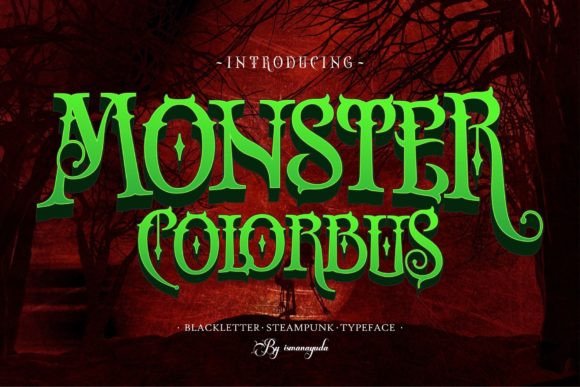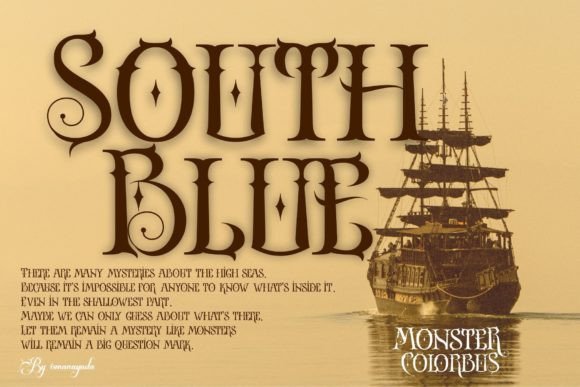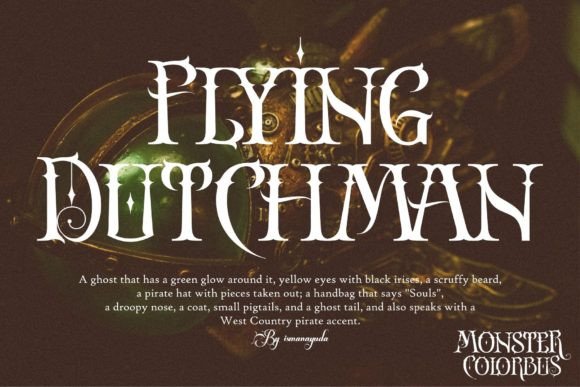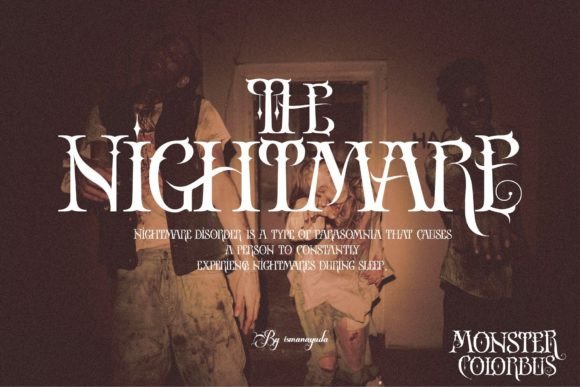
Monster Colorbus Font
About the Monster Colorbus Font
Discover the charm of Monster Colorbus Font. This font is a perfect blend of modern aesthetics and classic appeal. Monster Colorbus is a font that has a blackletter style but is given a steampunk feel so that users can appreciate works of art more through a beautiful writing style.
Its strong, angular forms make Monster Colorbus ideal for headlines, posters, and branding projects requiring a bold, attention-grabbing aesthetic. The steampunk influence lends itself well to vintage-inspired designs or projects with a mechanical or industrial theme. However, its highly decorative nature makes it unsuitable for body text or UI elements where readability is paramount. Avoid using it for long passages of text.
Pairing Monster Colorbus with a clean sans-serif like Open Sans for body copy provides excellent contrast and enhances readability. For a more cohesive vintage feel, consider pairing it with a complementary serif font such as Playfair Display. A geometric sans-serif could also work well, offering a modern counterpoint to the font’s ornate style.
The overall personality of Monster Colorbus is bold and assertive, yet with a touch of refined vintage charm. It projects confidence and a sense of history, making it a strong choice for brands aiming for a sophisticated yet edgy image.
Monster Colorbus Font Usage Examples
Monster Colorbus Font Example